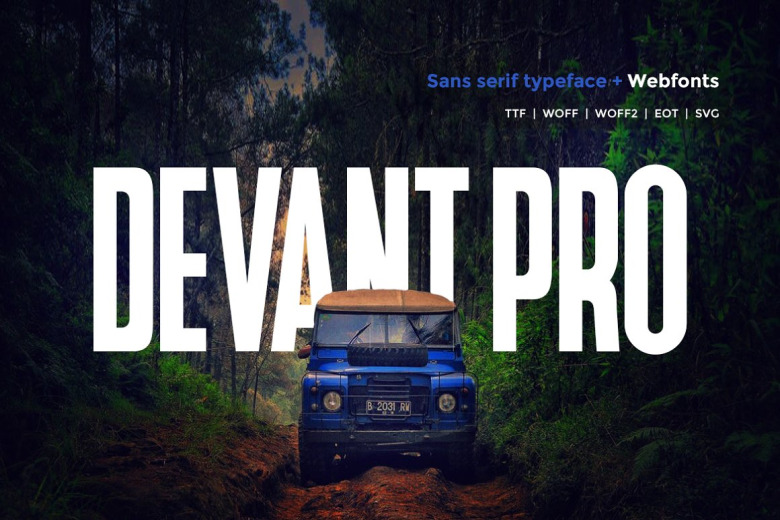
Devant Pro Modern Sans Typeface
Devant Pro is a modern Sans Serif typeface very much suitable for Film Posters, headlines, Block letter, Subheading, Logo Designs, Big Banners. Classic & Decorative Typography Web Designs.